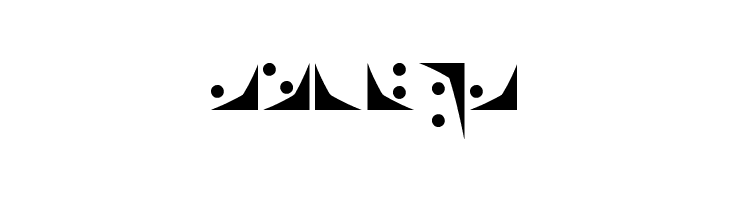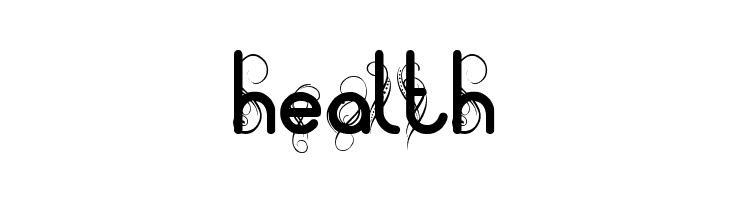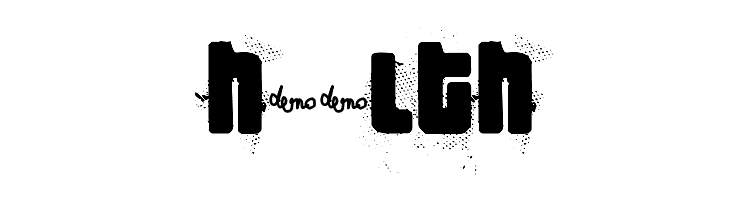
A dynamic, expressive font with tall, narrow letterforms and sharp strokes.
A bold, italic font with rounded, smooth characters and a modern yet classic style.
An artistic and abstract representation of Braille with decorative elements.
A bold, geometric slab serif font with a modern yet classic appeal.
An ornate, decorative font with intricate swirls and embellishments.
A playful, textured font resembling crayon drawings, ideal for creative projects.
A bold, blocky font with a distressed, industrial texture.
A playful handwritten font with thin, uneven strokes and a casual style.